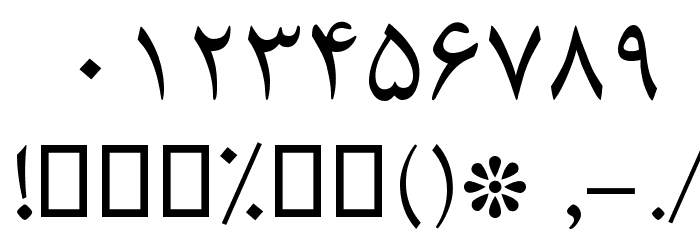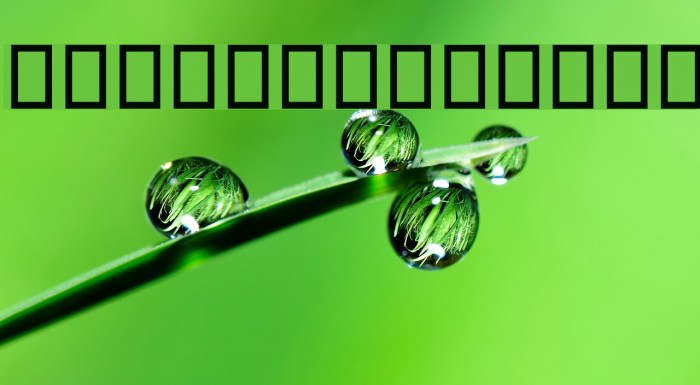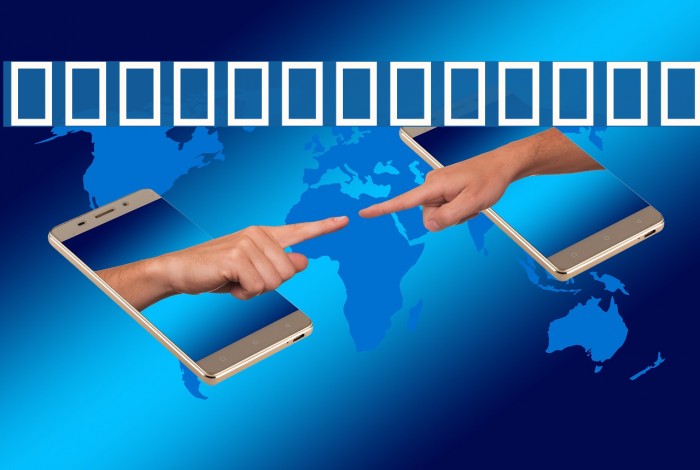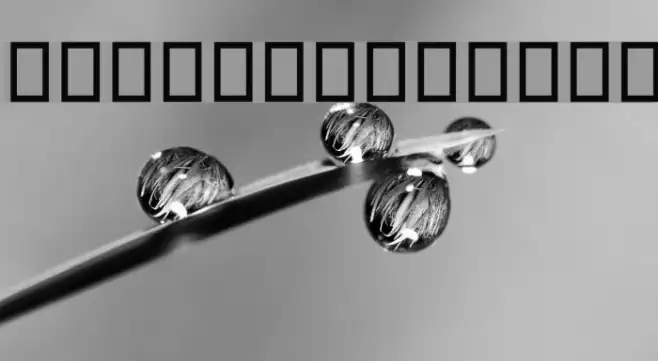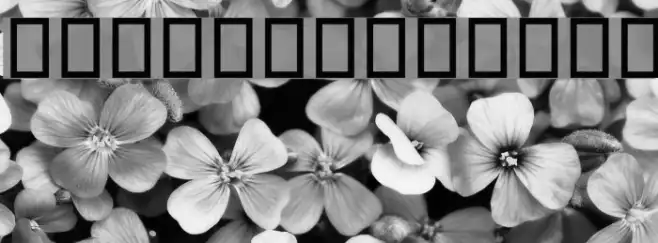
Badr Font
This font features a distinct and elegant style with a calligraphic influence, characterized by flowing curves and a harmonious balance between thick and thin strokes. The numerals are particularly ornate, with a graceful, almost handwritten appearance. The special characters maintain the same aesthetic, adding a touch of sophistication. The overall design is both artistic and functional, making it suitable for a variety of creative applications.
An elegant, calligraphic font with flowing curves and balanced strokes.
- Proposed Projects: Ideal for wedding invitations, formal event programs, luxury brand logos, and artistic book covers.
- Overall Style: Classic
- Use Case: Logos, Invitations, Decorative text